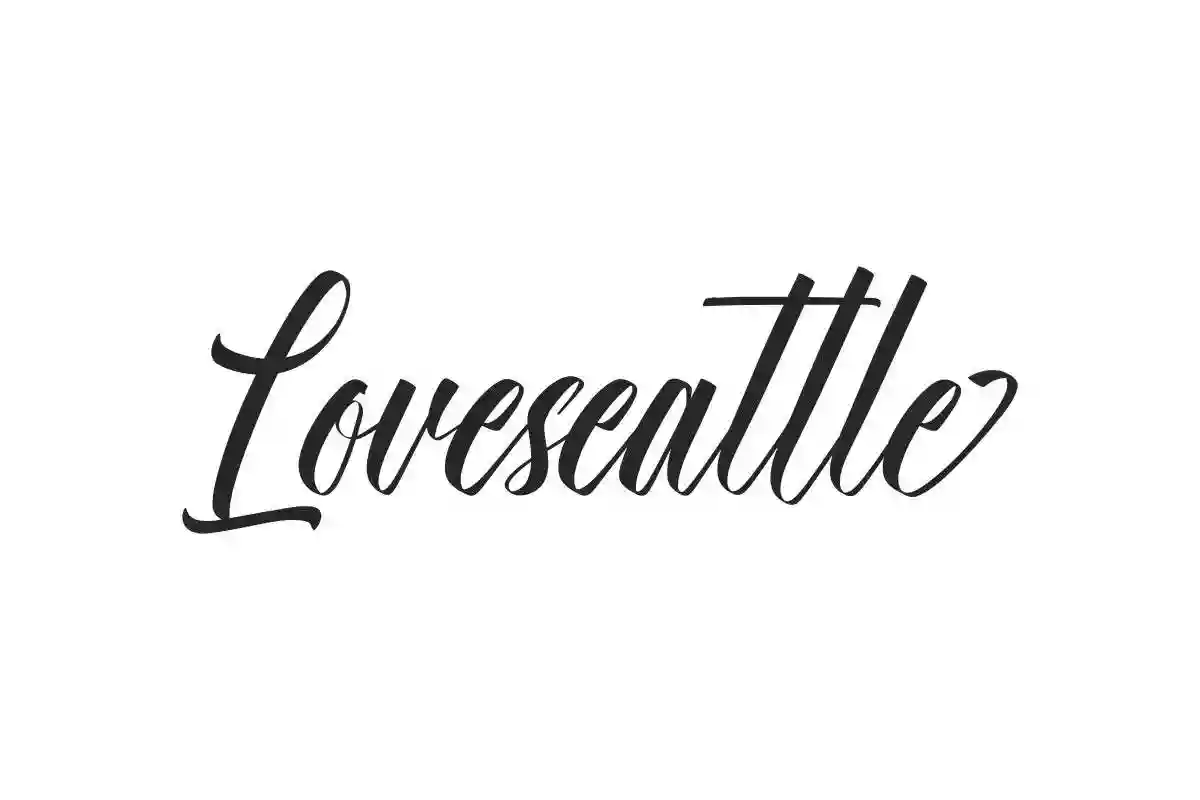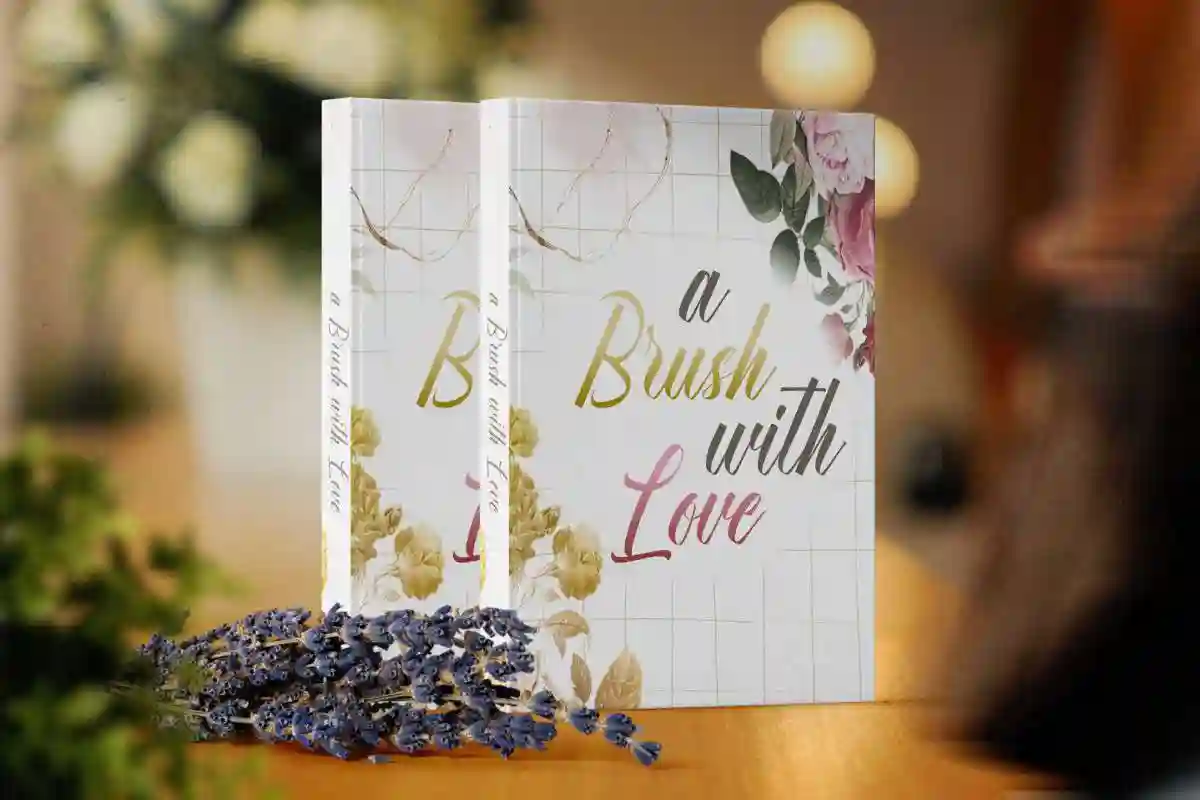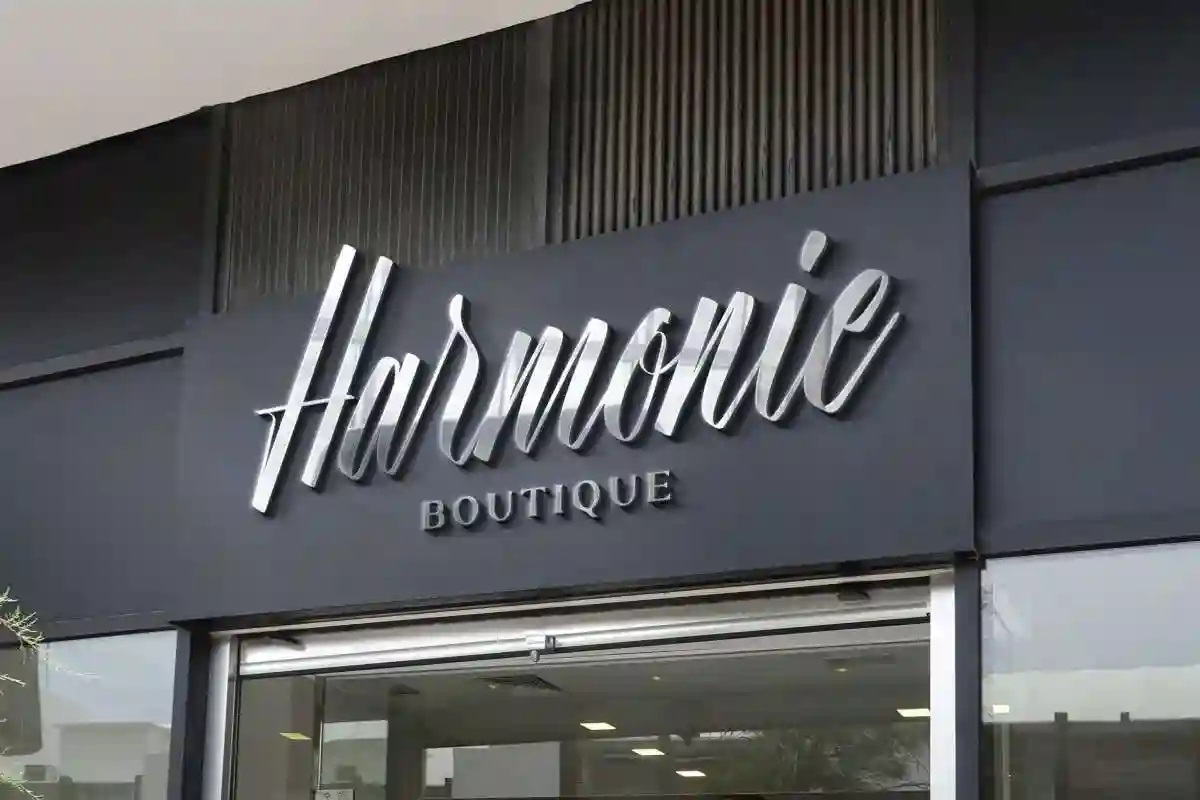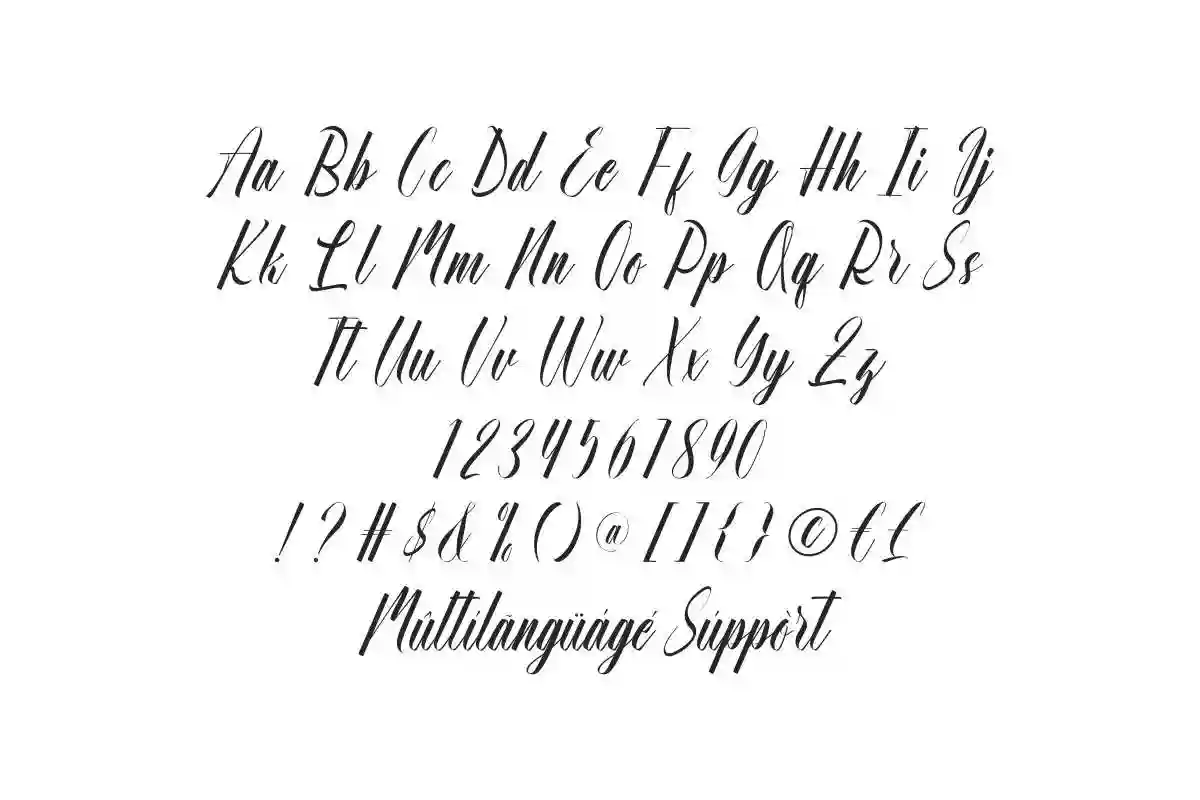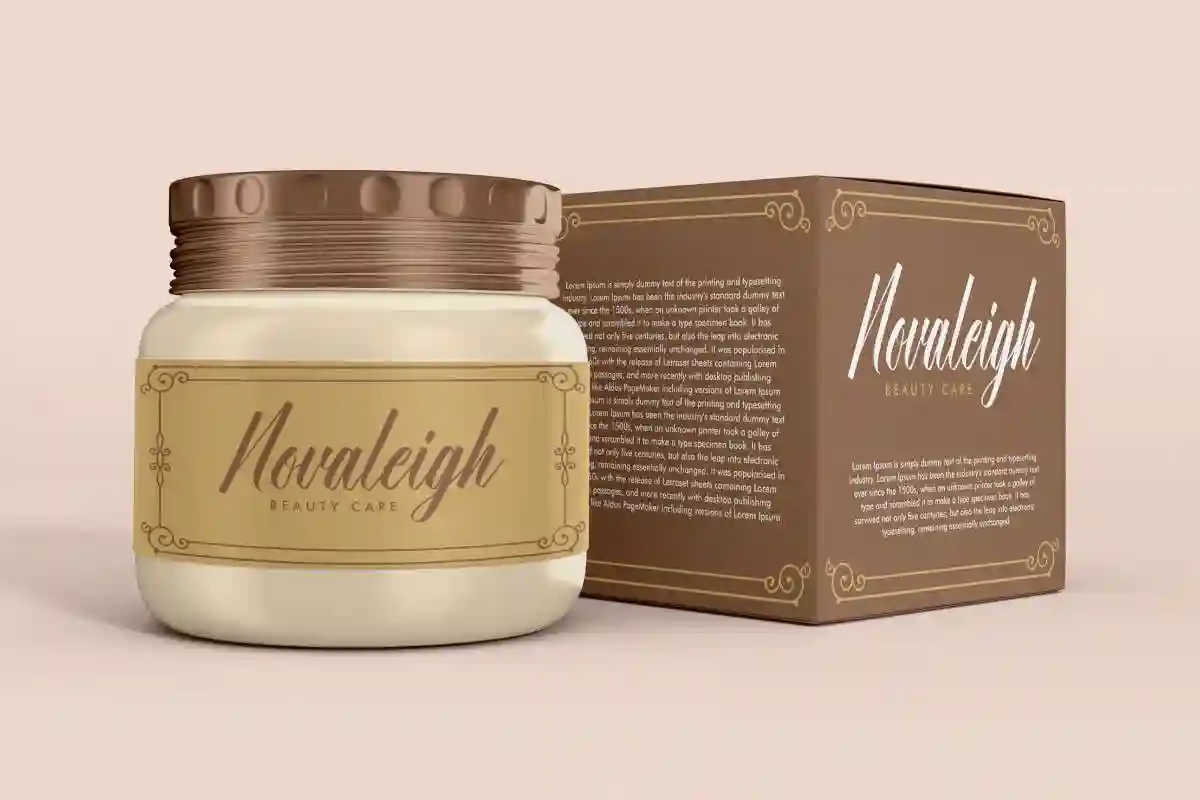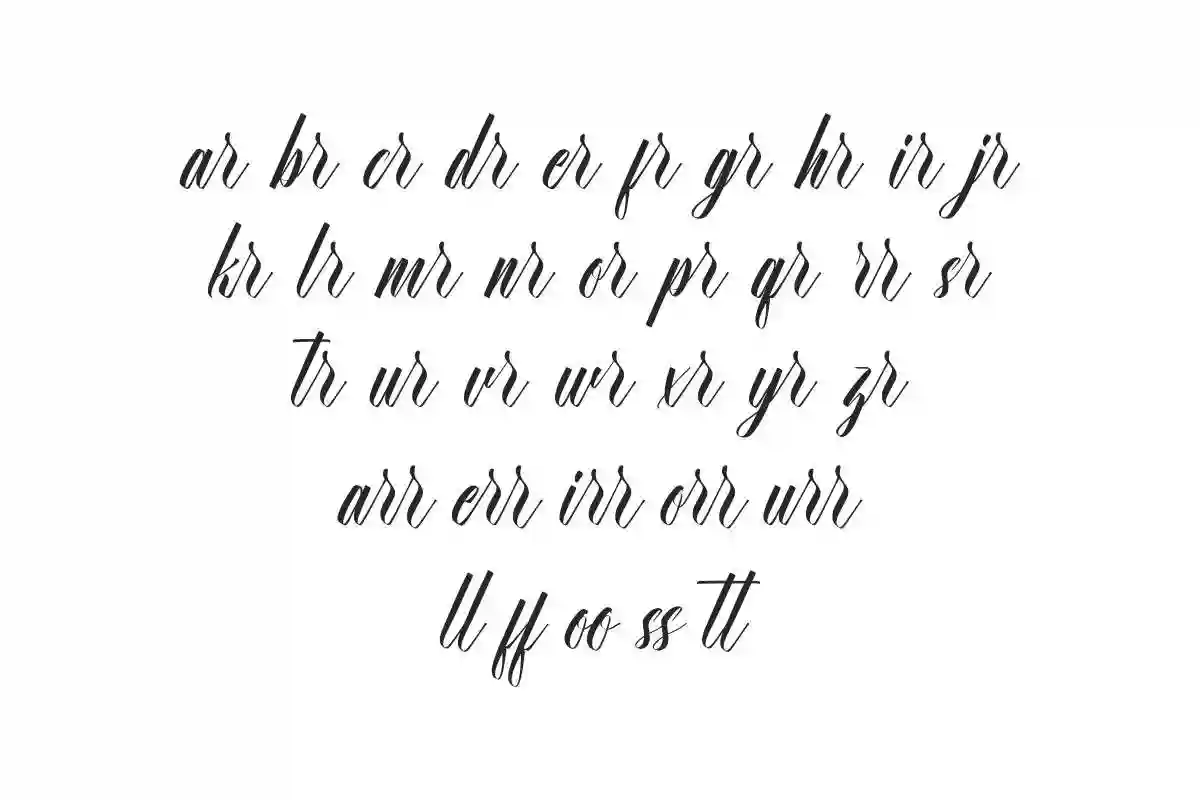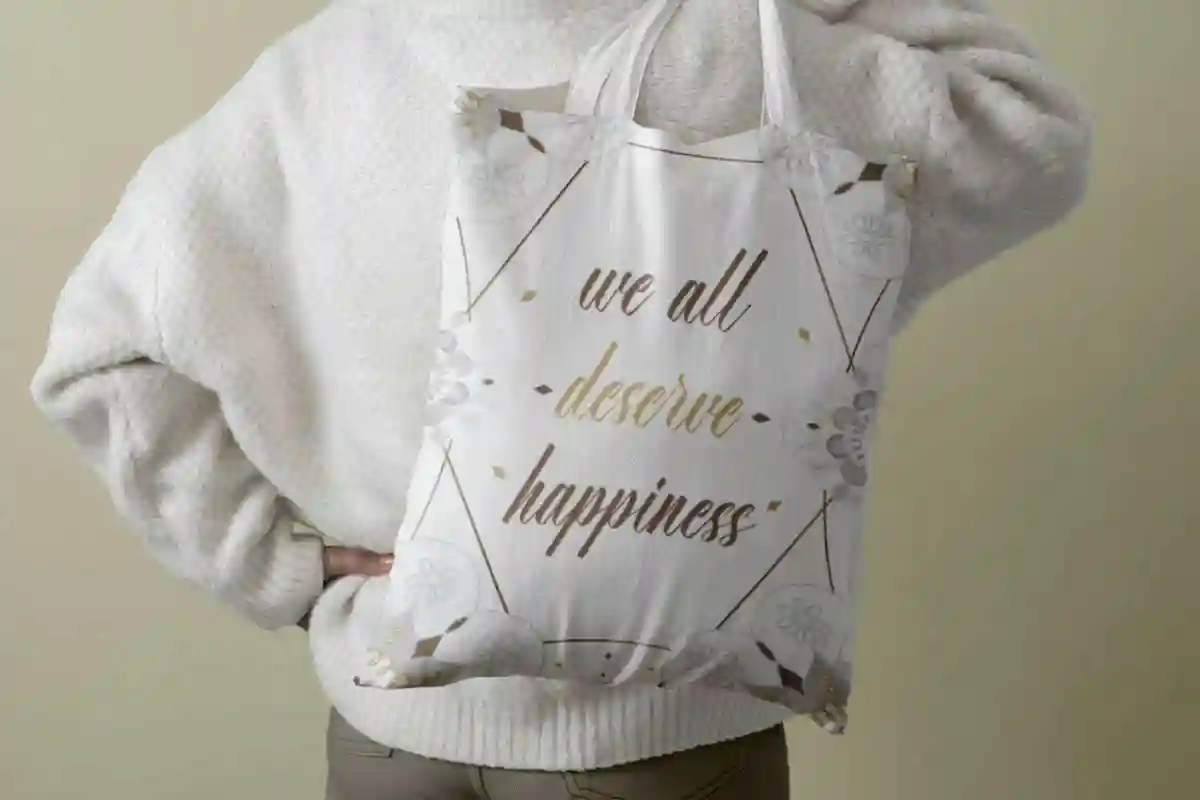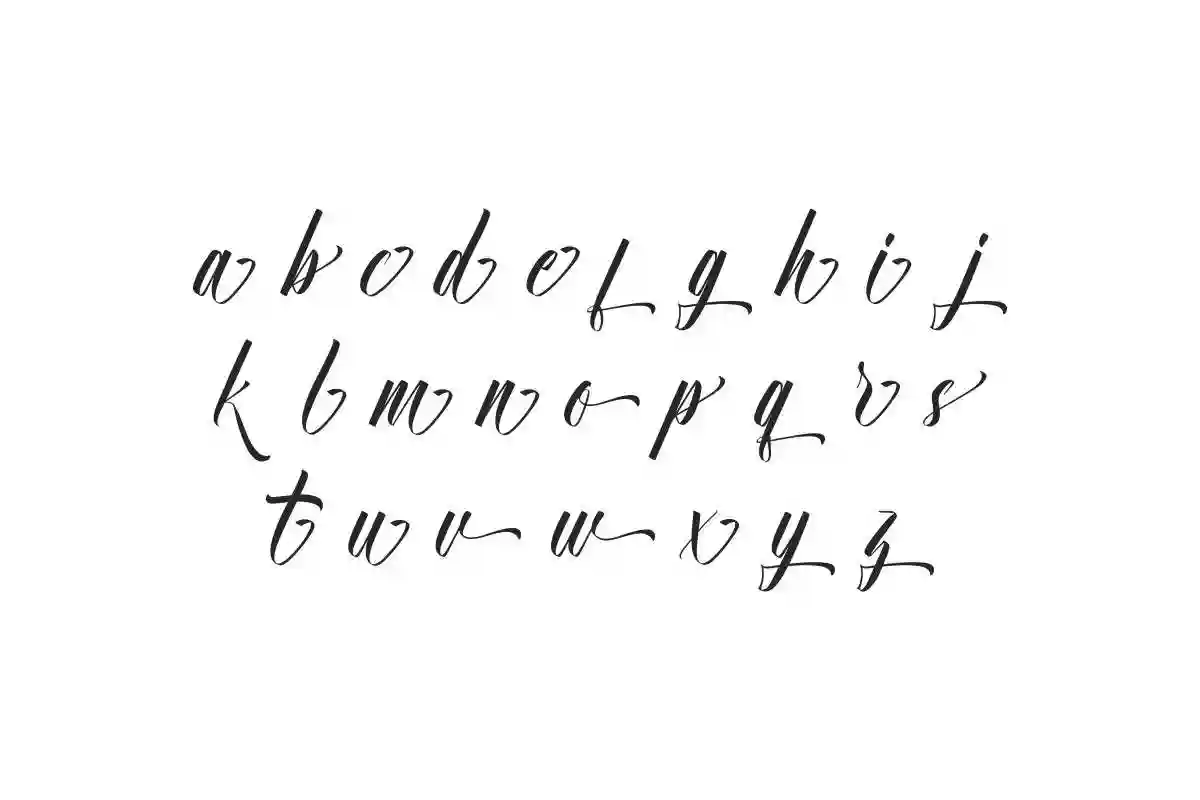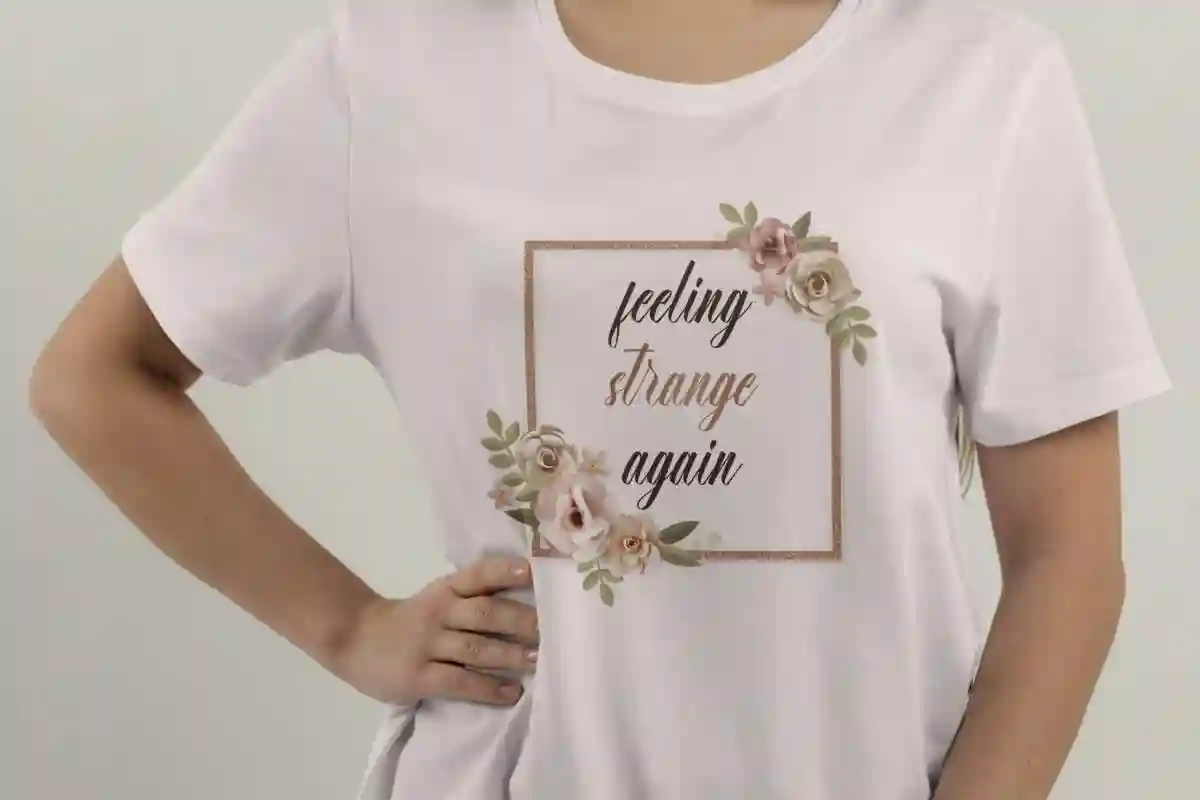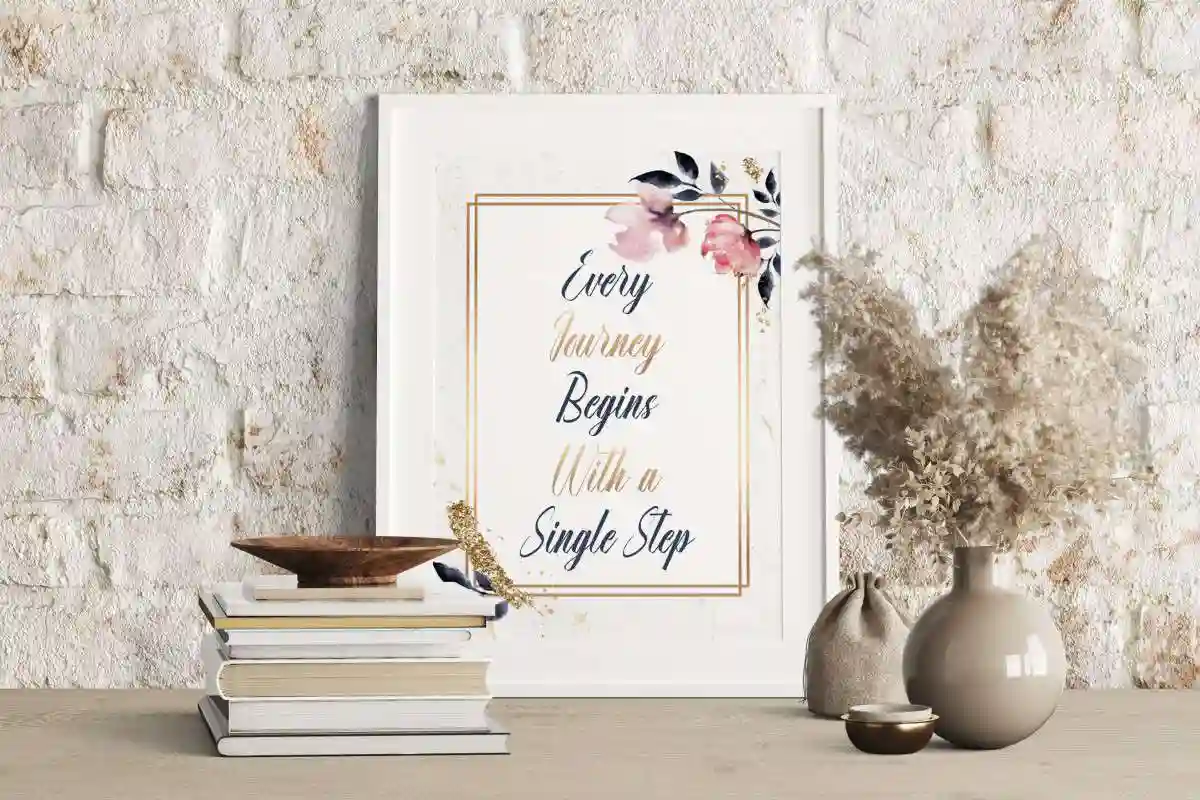
Loveseattle Calligraphy Font
Loveseattle Font is a casual hand lettering calligraphy script font by NihStudio. This calligraphic font will be great for wedding, crafts, cosmetic brands, restaurant, cafe, movies, spa, makeup artist, etc
Loveseattle Font is a casual calligraphy style font with stylish look. It has a modern and easy to read that will add to the beauty of your designs, such as brand logo, cover, invitation, product packaging, quote, screen print, signage, stationery, sticker, title, and much more!
Loveseattle Font comes with a full set of Uppercase and Lowercase Basic Characters, Number, Punctuation, Symbol. This font also features a ligature, and alternate characters to add aesthetic value to the font. Use this for your business industry such as, artist, author, boutique, clothing brand, cosmetic, event organizer, handicraft, printing, publishing, etc.